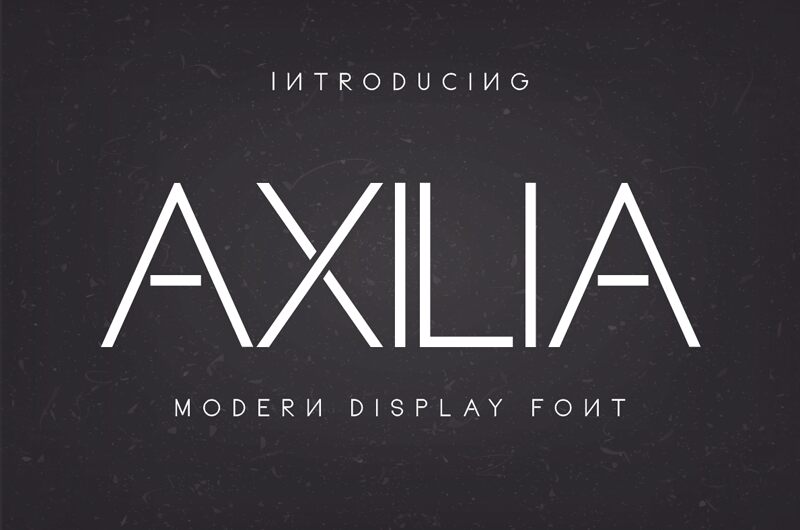
Axilia
Axilia is a minimalist sans serif Modern Display Font
Delicate and romantic, Axilia's clean lines and sharp edges make it a perfect sans for weddings, logos, quotes, print, signage, and more!
Axilia is simple but significant, and defined by its crisp edges and modern touches. It is designed for optimal legibility. An all caps sans-serif, Axilia makes a statement without making a scene.
-Uppercase letters
-Numbers & punctuation
-Foreign language characters
Axilia works great in branding, logos, headlines, high fashion. The different weights give you full range to explore a whole host of applications, from tech startup, local events to sports matches.
Perfect for DIY projects, greeting cards, labels, quotes, posters, wall art, branding, packaging, websites, photo & photography overlays, signs, window art, scrapbooking, tags and so much more!